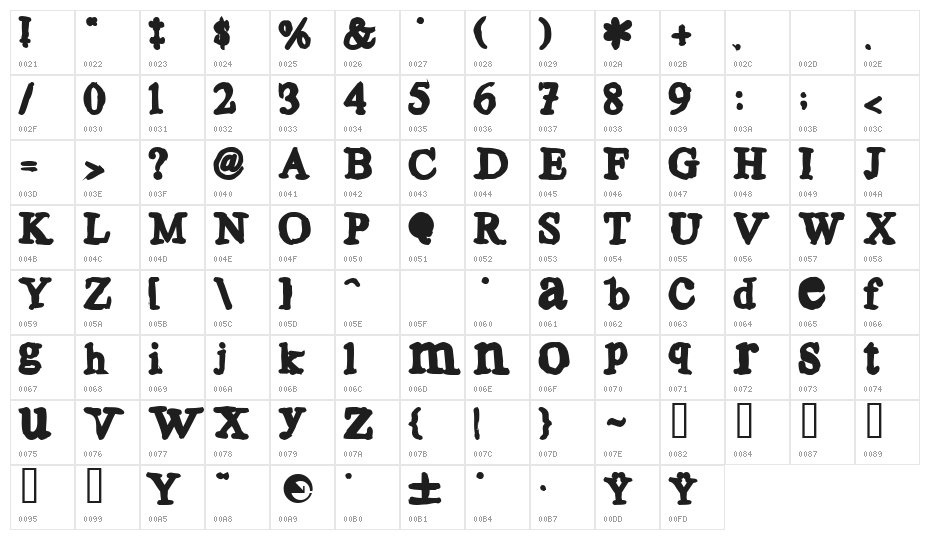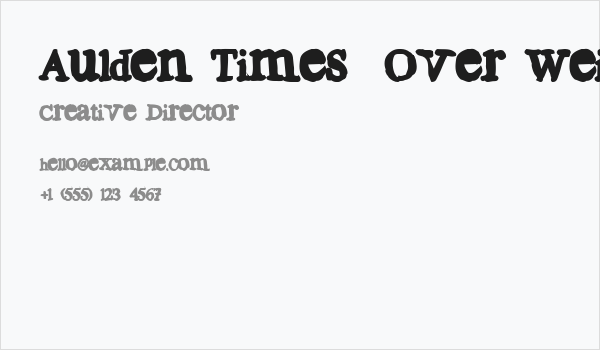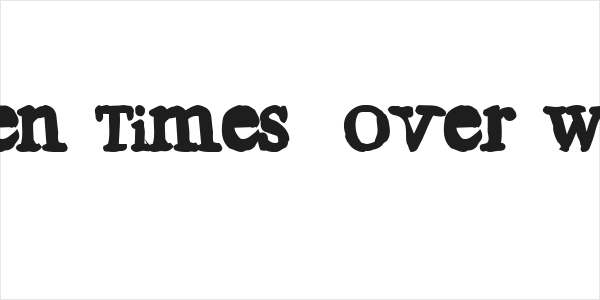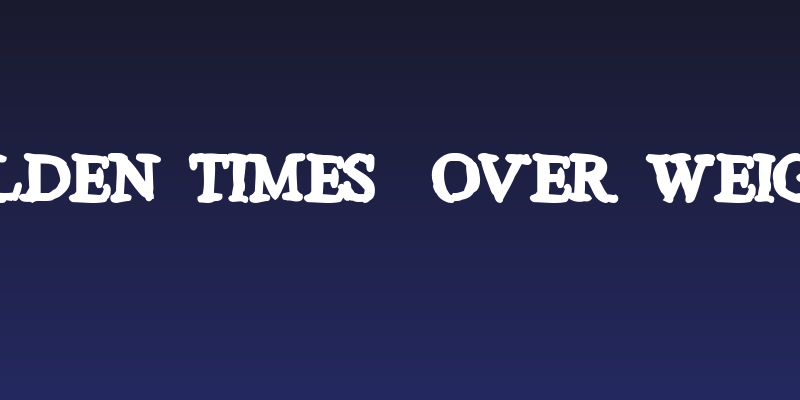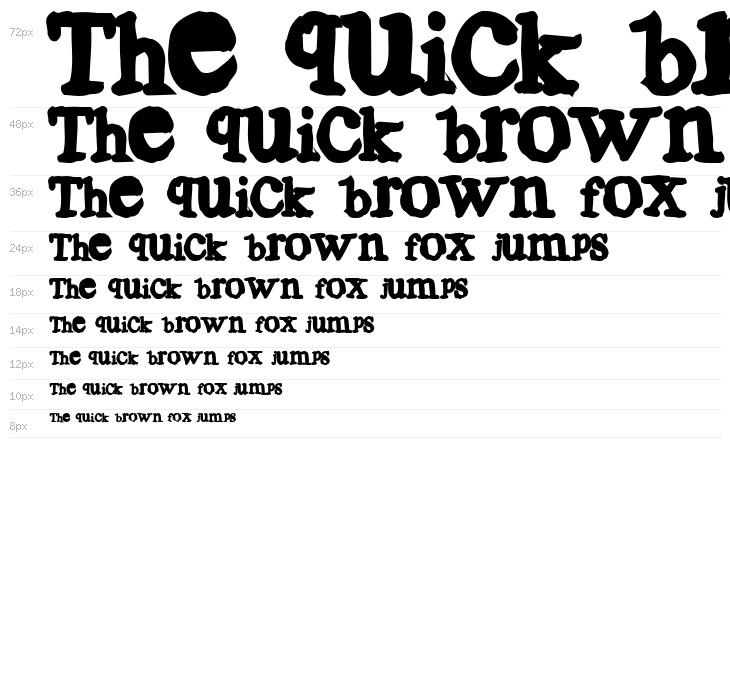
Aulden Times Over Weight Font
Aulden Times Over Weight Description
This font features a bold and heavy design with a strong presence. The characters are thick and robust, giving them a powerful and impactful appearance. The strokes are uneven, adding a unique and artistic flair to the overall style. The uppercase and lowercase letters maintain a consistent weight, creating a cohesive look. The numbers and special characters follow the same bold style, ensuring uniformity across all elements. This font is ideal for projects that require a strong visual impact and a distinctive, artistic touch.
| Proposed Projects | Ideal for posters, headlines, branding, and any project needing a bold, artistic touch. |